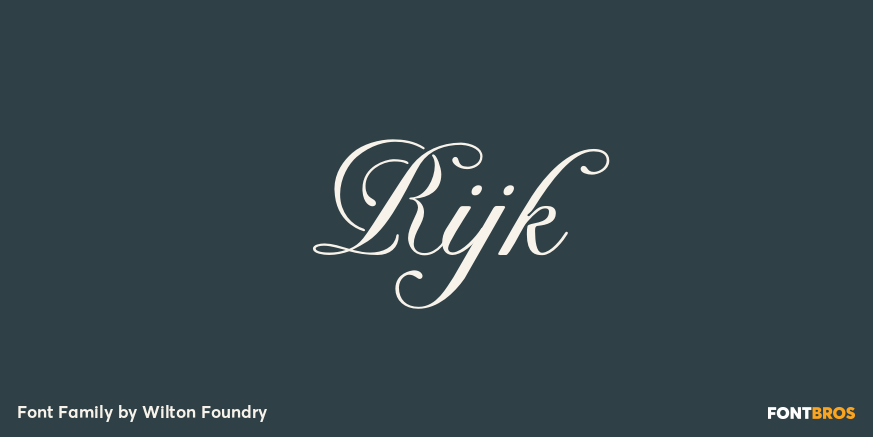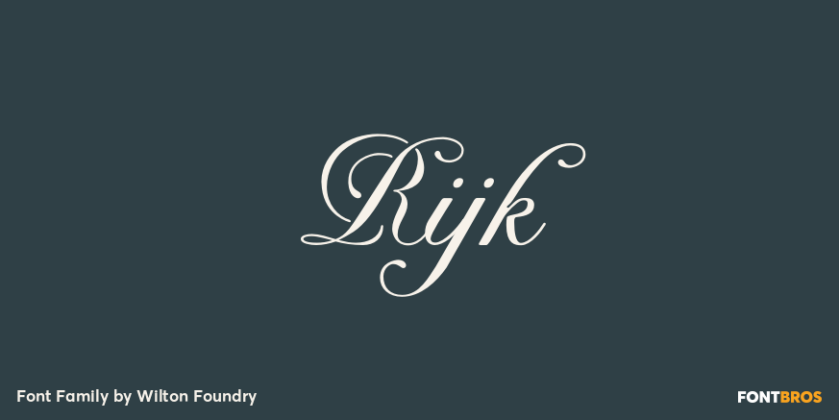
About Rijk
The font name comes from the Dutch word ?Rijk? meaning ?rich?. I\’d like you to consider Rijk as a good Pinot Noir: medium bodied, offering succulent juicy berry flavors, accentuated by delicate aromas of coffee and vanilla oak. Ruby red in color, it boasts…